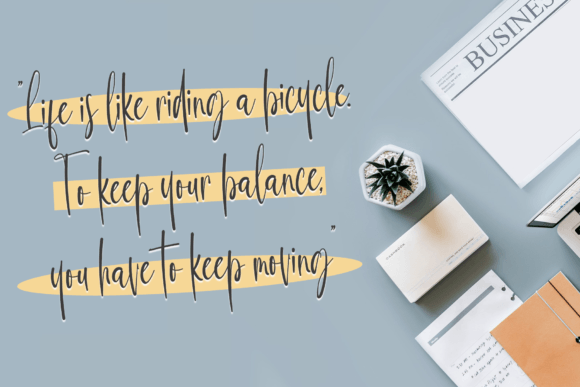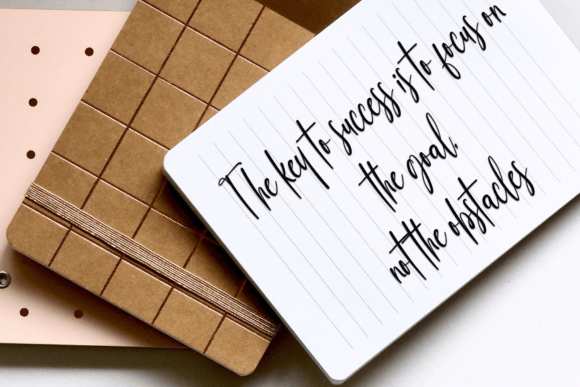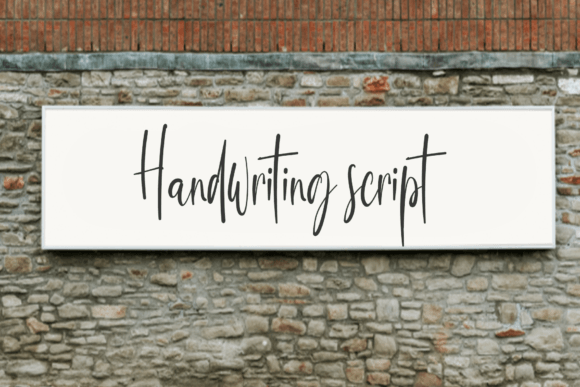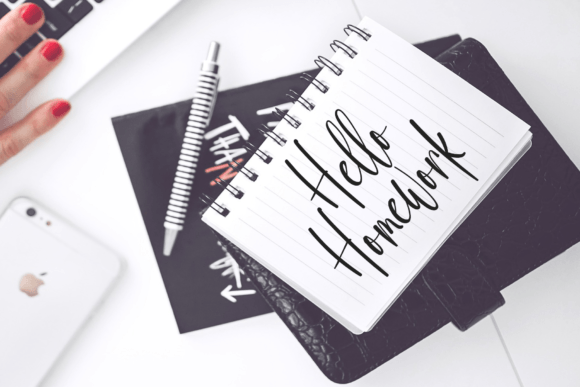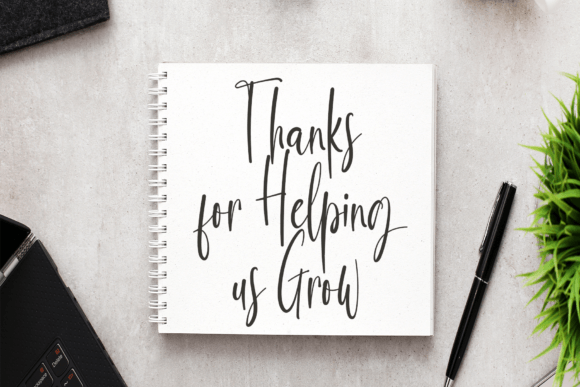
Better Together Font: The Sweet and Friendly Handwritten Font for Your Design Needs
Are you looking for a font that can add a personal touch to your designs? Look no further than the Better Together font, a sweet and friendly handwritten font that’s perfect for creating beautiful wedding invitations, cards, and more. In this article, we’ll explore the features and benefits of the Better Together font, and how it can elevate your designs to the next level.
What is Better Together Font?
Better Together is a fresh and casual handwritten font that’s designed to bring a sense of warmth and personality to your designs. With its smooth and flowing lines, this font is ideal for creating a variety of projects, from wedding invitations and cards to social media graphics and blog posts.
Key Features of Better Together Font
- Sweet and Friendly: The Better Together font has a sweet and friendly feel that’s perfect for creating designs that are personal and inviting.
- Handwritten Style: This font has a beautiful handwritten style that’s reminiscent of handwritten notes and letters.
- Fresh and Casual: The Better Together font has a fresh and casual feel that’s perfect for creating designs that are modern and trendy.
- Highly Versatile: This font can be used for a wide range of projects, from wedding invitations and cards to social media graphics and blog posts.
Why Choose Better Together Font?
So why choose the Better Together font for your design needs? Here are just a few reasons why this font stands out:
- Unique and Personal: The Better Together font has a unique and personal feel that’s perfect for creating designs that stand out from the crowd.
- Easy to Read: This font is highly legible and easy to read, making it perfect for creating designs that need to communicate a message.
- Customizable: The Better Together font can be customized to fit your design needs, from adjusting the size and color to adding effects and textures.
Design Ideas Using Better Together Font
The Better Together font is highly versatile and can be used for a wide range of design projects. Here are a few ideas to get you started:
- Wedding Invitations: Use the Better Together font to create beautiful and personalized wedding invitations that set the tone for your special day.
- Greeting Cards: This font is perfect for creating greeting cards for birthdays, holidays, and other special occasions.
- Social Media Graphics: Use the Better Together font to create eye-catching social media graphics that showcase your brand’s personality.
- Blog Posts: Add a personal touch to your blog posts with the Better Together font, perfect for creating engaging and readable content.
Tips for Using Better Together Font
Here are a few tips for using the Better Together font in your designs:
- Pair with Other Fonts: Experiment with pairing the Better Together font with other fonts to create a unique and visually appealing combination.
- Adjust Size and Color: Customize the Better Together font by adjusting the size and color to fit your design needs.
- Add Effects and Textures: Add effects and textures to the Better Together font to give it a more personalized and creative feel.
The Better Together font is a sweet and friendly handwritten font that’s perfect for adding a personal touch to your designs. With its smooth and flowing lines, this font is ideal for creating a variety of projects, from wedding invitations and cards to social media graphics and blog posts. Whether you’re a designer or crafter, the Better Together font is a great choice for anyone looking to add a unique and personal touch to their designs.